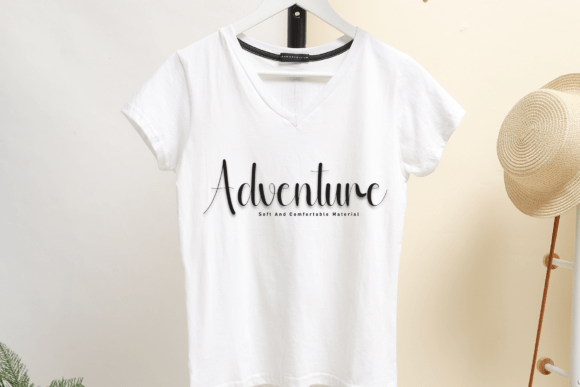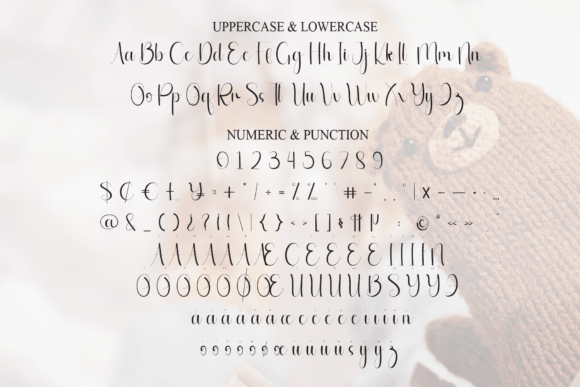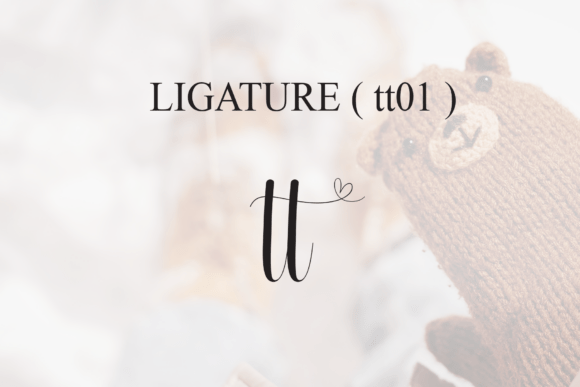
Introduction to Mitten Font
Imagine you’re brainstorming ideas for your next creative project – a wedding invitation, a personal blog, or a branding campaign – and you’re searching for the perfect font to make it stand out. You scroll through your design resource library, browsing through high-quality fonts, but nothing seems to capture the essence of your vision. That’s when you stumble upon the Mitten Font – a stylish handwritten script font that radiates elegance and fluidity.
With its smooth, flowing strokes and natural, sophisticated feel, the Mitten Font is the perfect addition to any design. Whether you’re looking for a free download or a high-quality font to elevate your creative project, this typeface is sure to impress. Its transparent background allows for seamless integration with any design element, making it a valuable resource for designers looking to add a personal touch to their work.
Key Features of Mitten Font
- Unique characteristics: Distinctive, cursive script style with a touch of whimsy
- Perfect for designers, artists, and writers seeking a stylish, creative font for their next project
Honest Review: Mitten Font
I recently stumbled upon the Mitten Font while searching for a design resource to spice up a creative project. I’m impressed by the high quality of this free download, which includes a range of characters and glyphs.
- The transparent background of the font makes it easy to combine with different background images or colors.
- The font’s playful and cursive design makes it perfect for creating eye-catching titles and headings.
- The font is highly customizable, allowing designers to adjust the size, color, and style to suit their needs.
- The font is not suitable for body text, as it can be difficult to read in certain sizes and styles.
- The font’s design may not appeal to all audiences, particularly those who prefer more traditional or formal typography.
Overall, I’m impressed by the Mitten Font’s design and versatility. While it may have some limitations, it’s a great resource for designers looking to add a unique touch to their creative projects. I’d definitely recommend it as a design resource, especially for those who want to create visually appealing titles and headings.
Mitten Font
The Mitten Font is a versatile and high-quality design resource perfect for any creative project. With its transparent background and clean design, it’s an excellent choice for designers looking for a free download to elevate their work.
Tips for Getting the Most Out of Mitten Font
Experiment with different font sizes, colors, and combinations to find the perfect look for your design. Use the Mitten Font in conjunction with other design elements to create a cohesive and visually appealing project.
The Mitten Font is perfect for a variety of projects, including:
- Blog posts
Alternatives to Mitten Font
Pacifico is a beautiful, high-quality script font perfect for creative projects that require a touch of elegance. It’s ideal for invitations, wedding designs, and other formal events. This font is a great alternative to Mitten Font when you need a more sophisticated look.
Unlike Mitten Font, Pacifico has a more refined and delicate feel, making it suitable for a wide range of designs. You can download Pacifico for free from various design resources and use it for personal or commercial projects with a transparent background.
Great Vibes is a modern, cursive font designed for creative projects that require a fun and playful vibe. It’s perfect for branding, social media, and advertising designs. This font is a great alternative to Mitten Font when you need a more energetic and youthful look.
Great Vibes is more dynamic and expressive than Mitten Font, making it ideal for designs that require a lot of personality. You can download Great Vibes for free from various design resources and use it for personal or commercial projects with a transparent background.